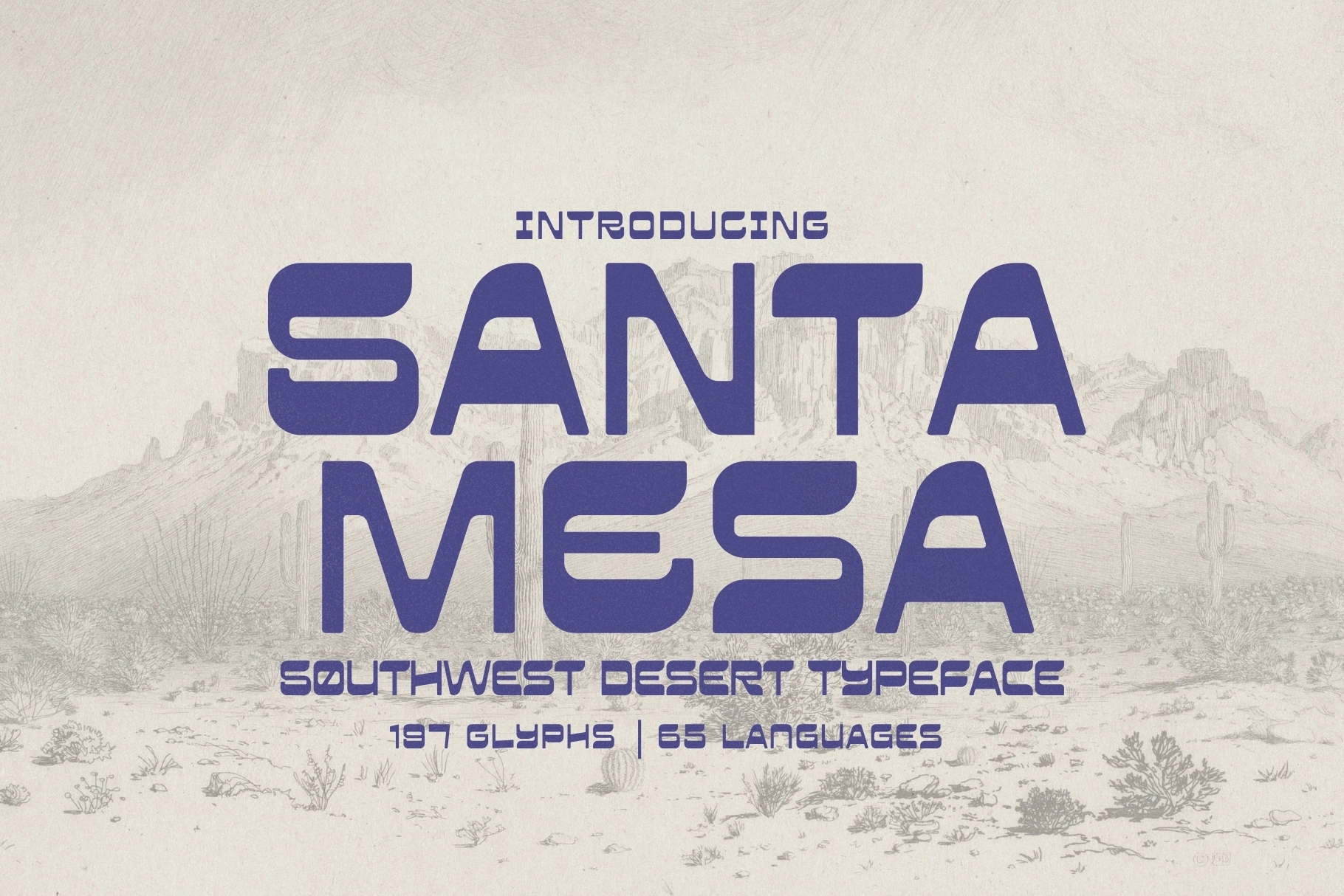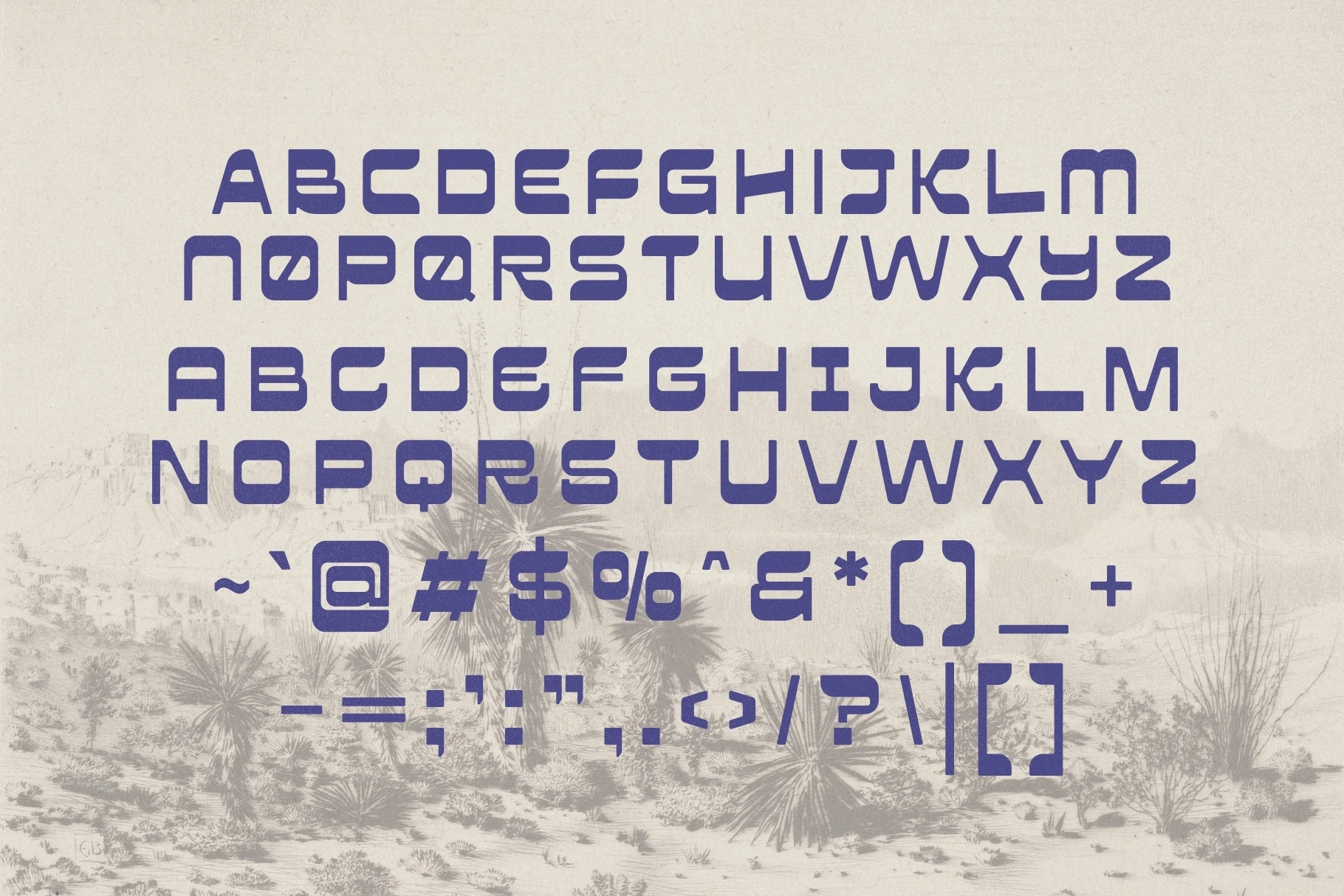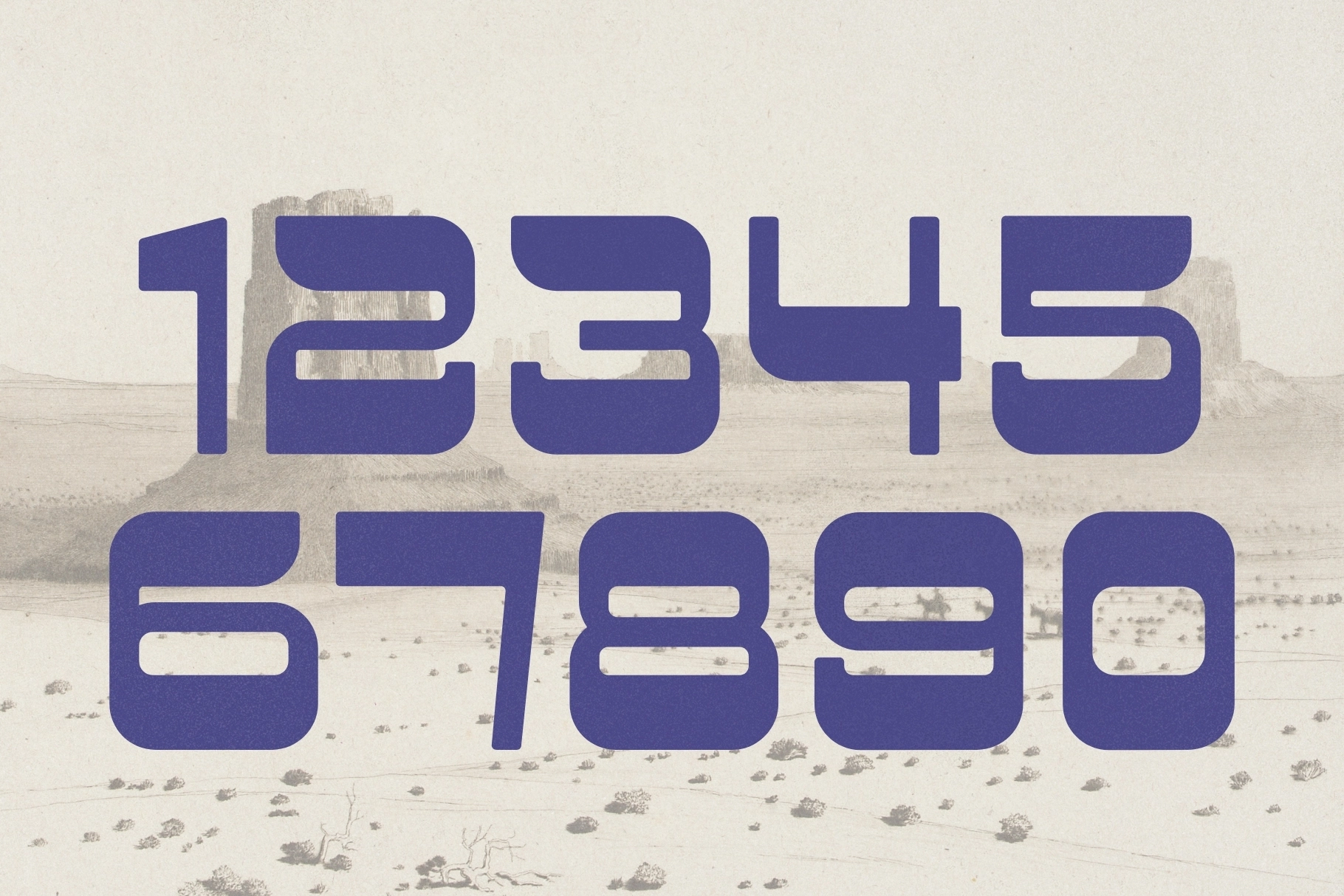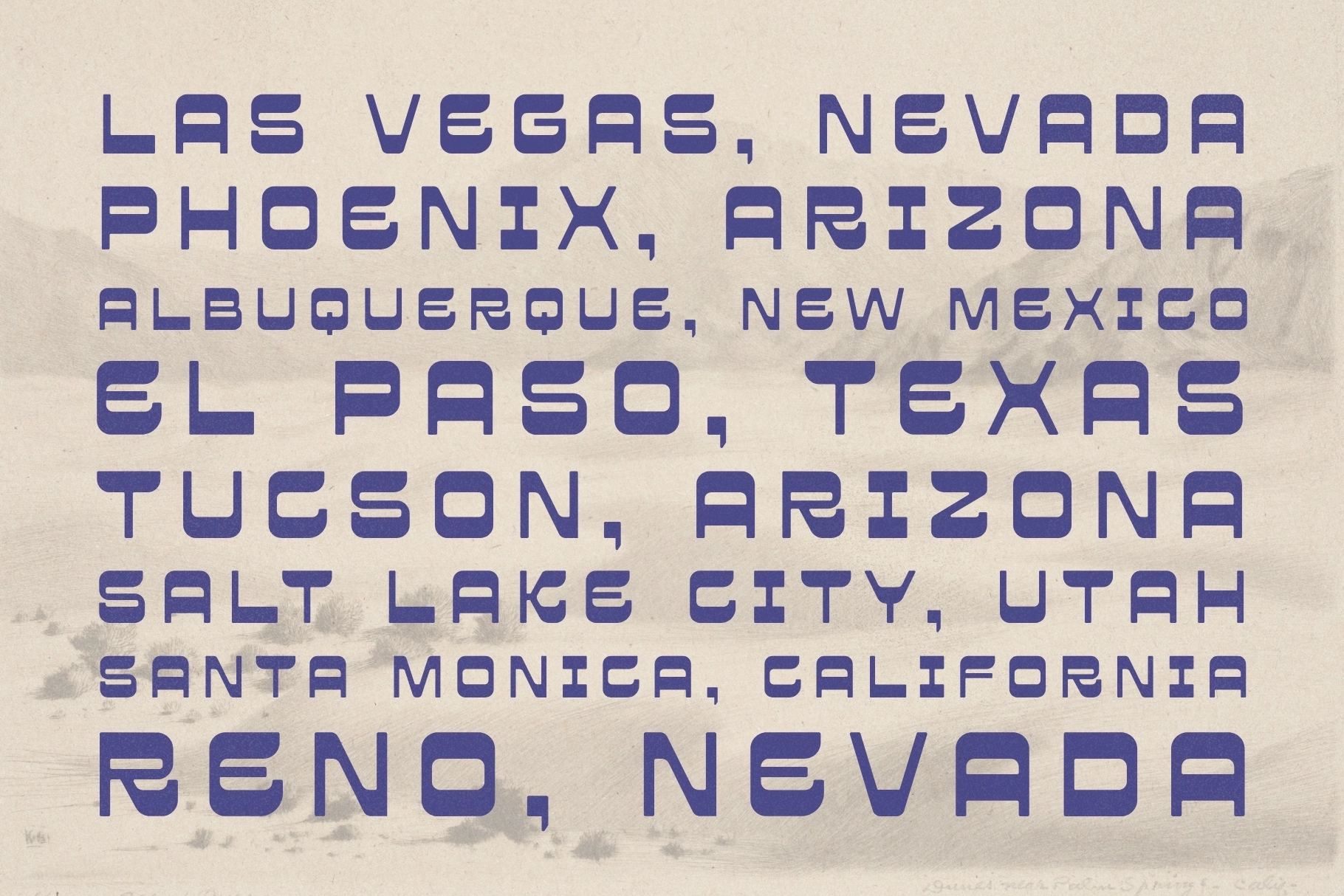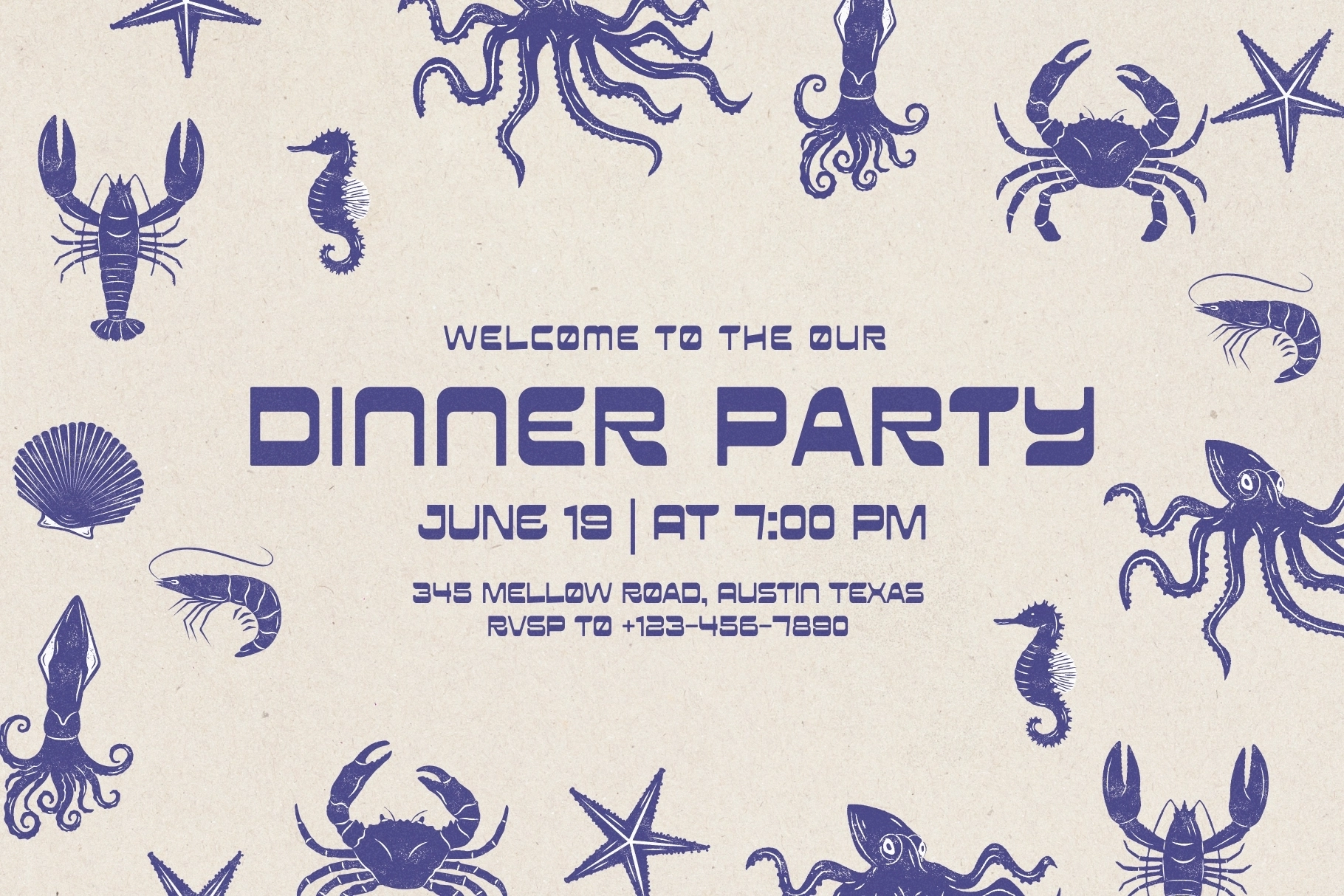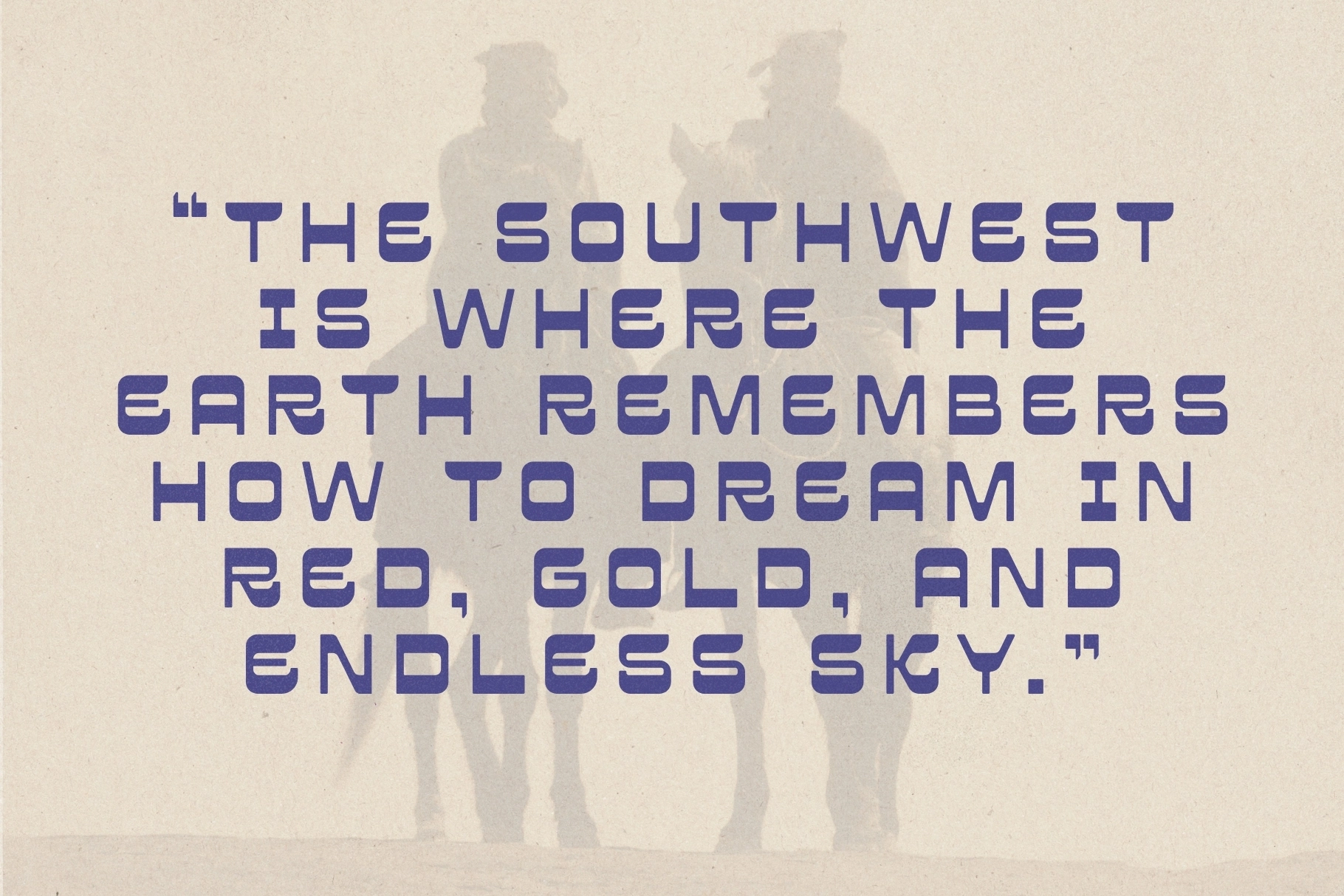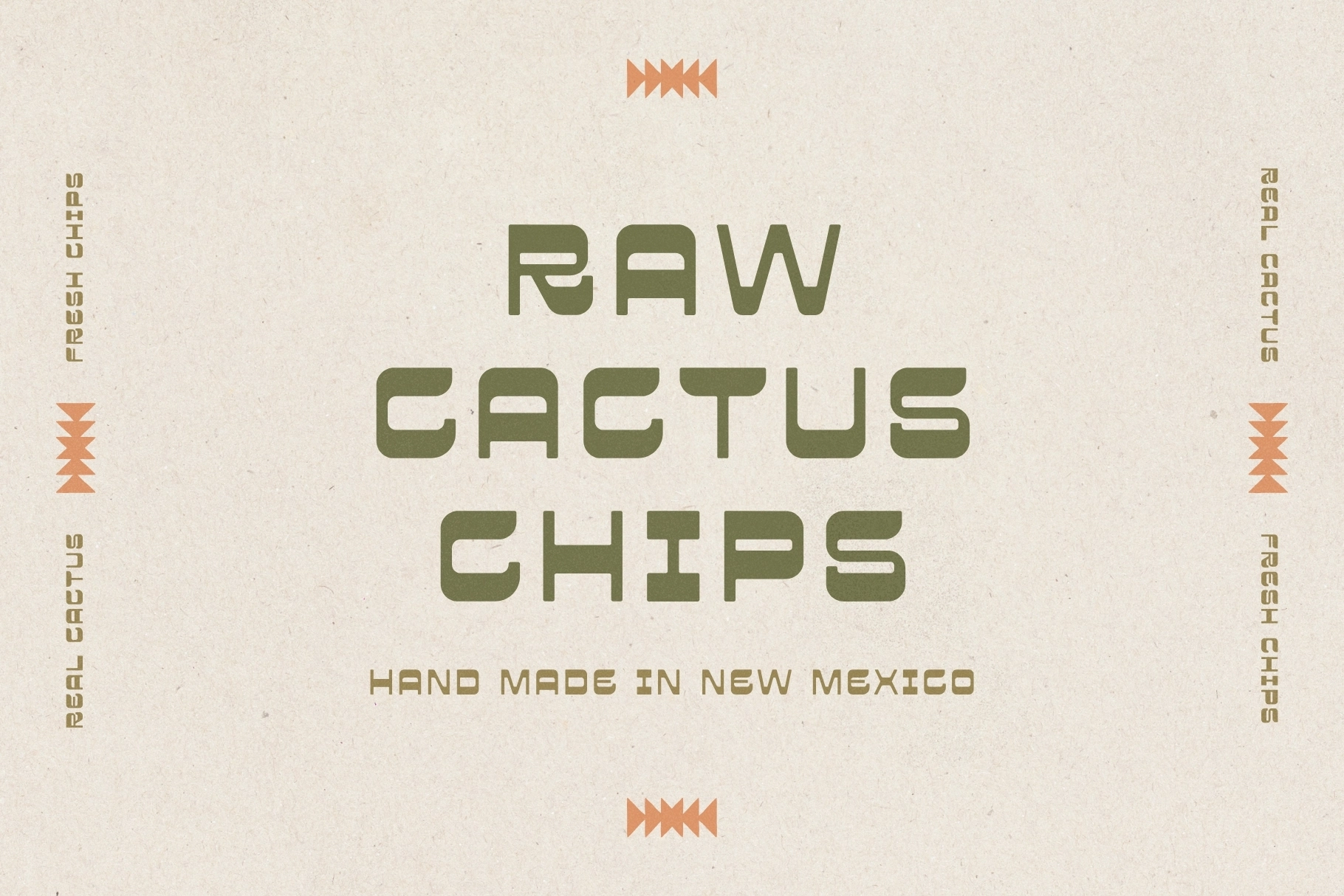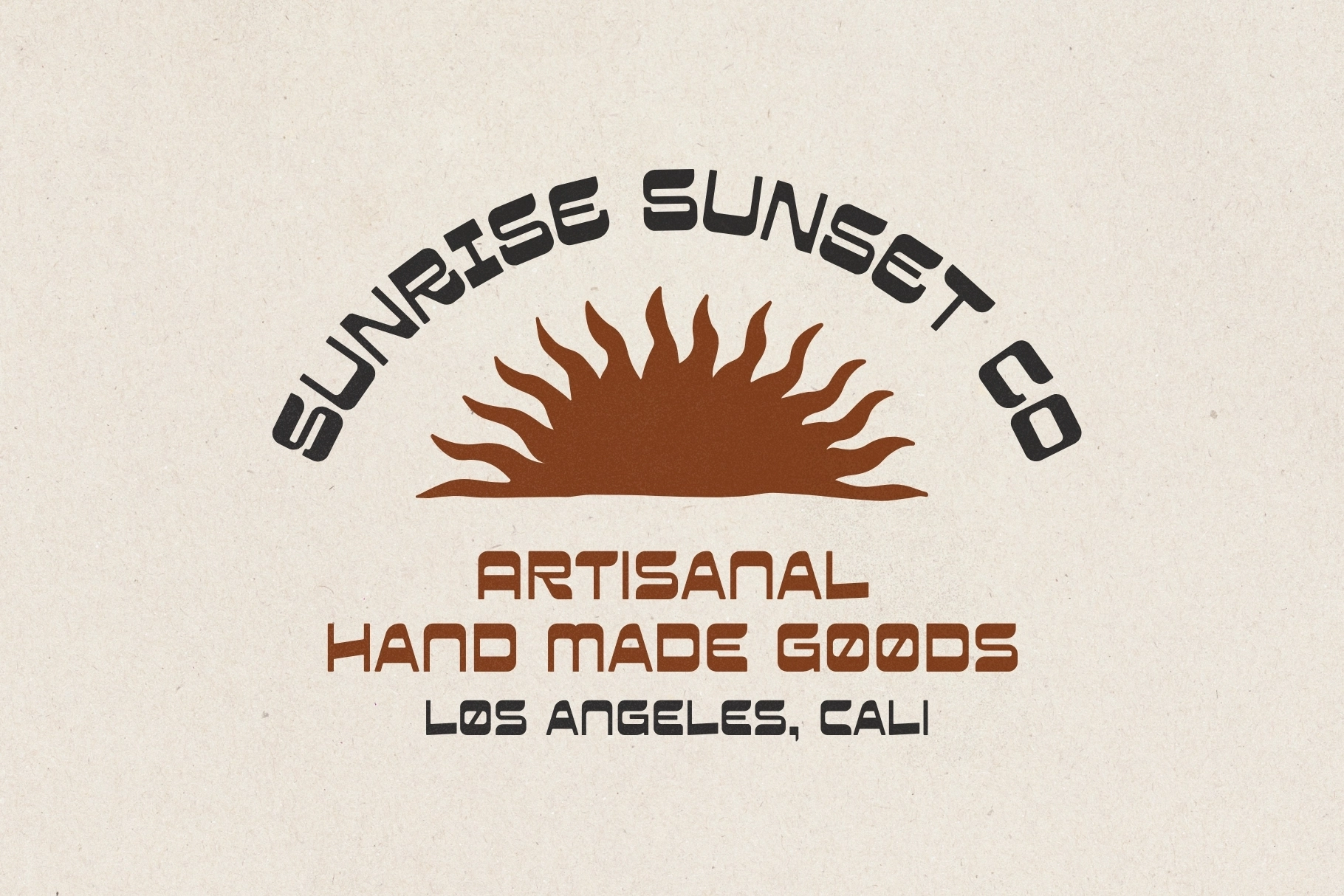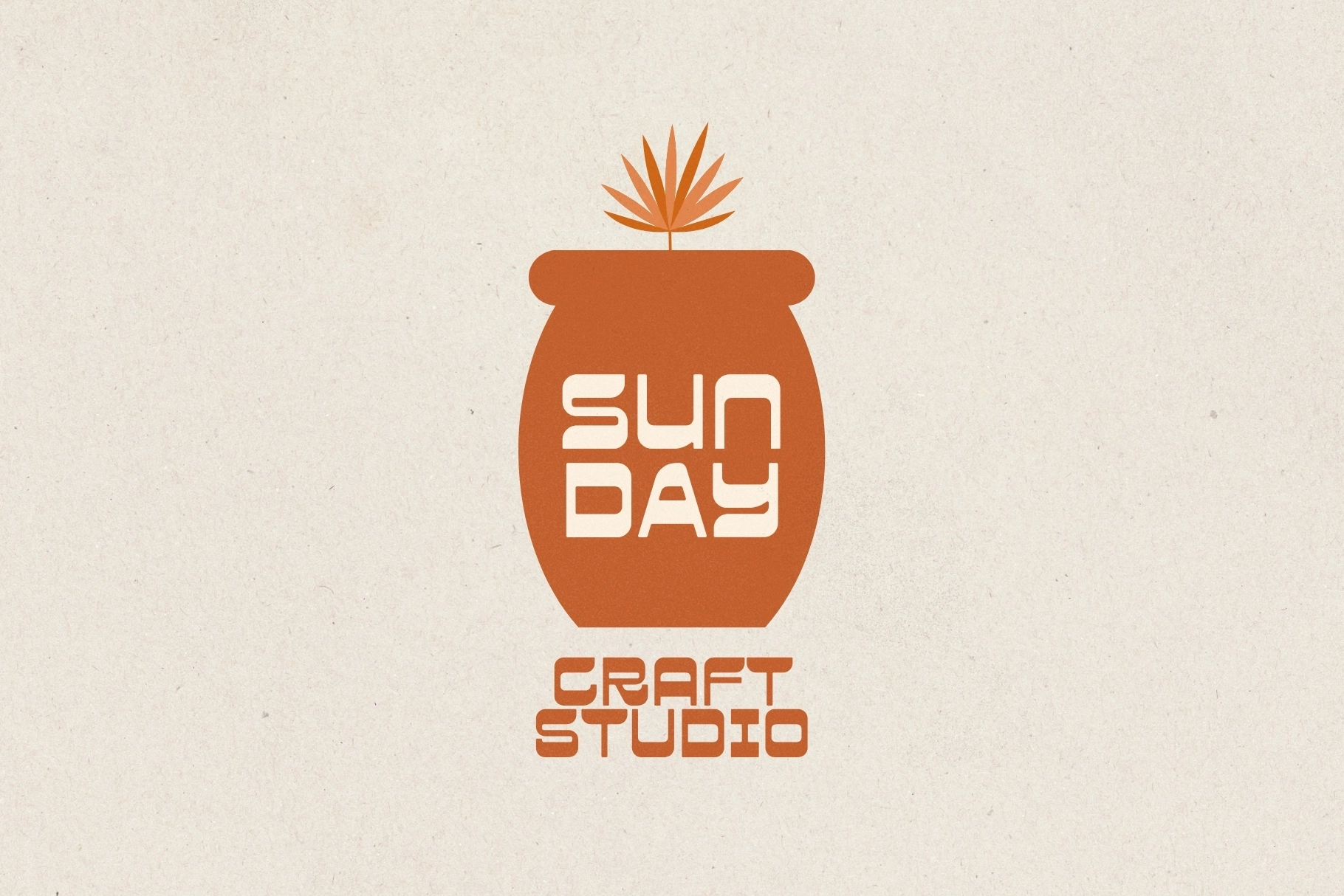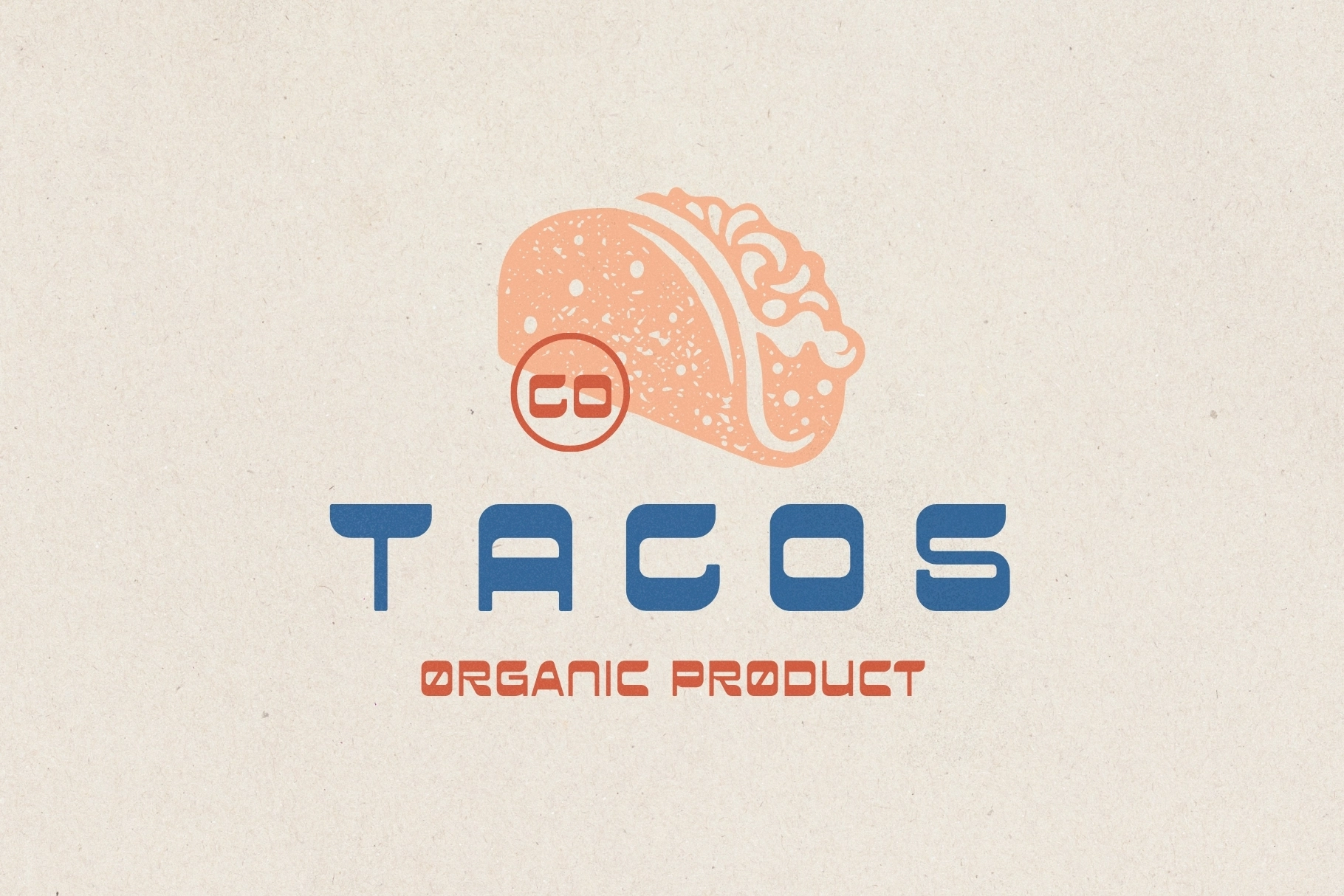
Santa Mesa – Southwest Boho Font
Santa Mesa
Santa Mesa – Southwest Boho Font is a warm and expressive display typeface inspired by desert landscapes, bohemian culture, and rustic western aesthetics. Its soft geometric forms, rounded edges, and handcrafted feel create a relaxed yet confident visual tone that feels both modern and nostalgic.
Blending boho charm with southwestern character, Santa Mesa is perfect for branding, packaging, invitations, and lifestyle designs that need a natural, earthy personality. The letterforms carry a subtle retro influence while maintaining clarity and versatility across different creative applications.